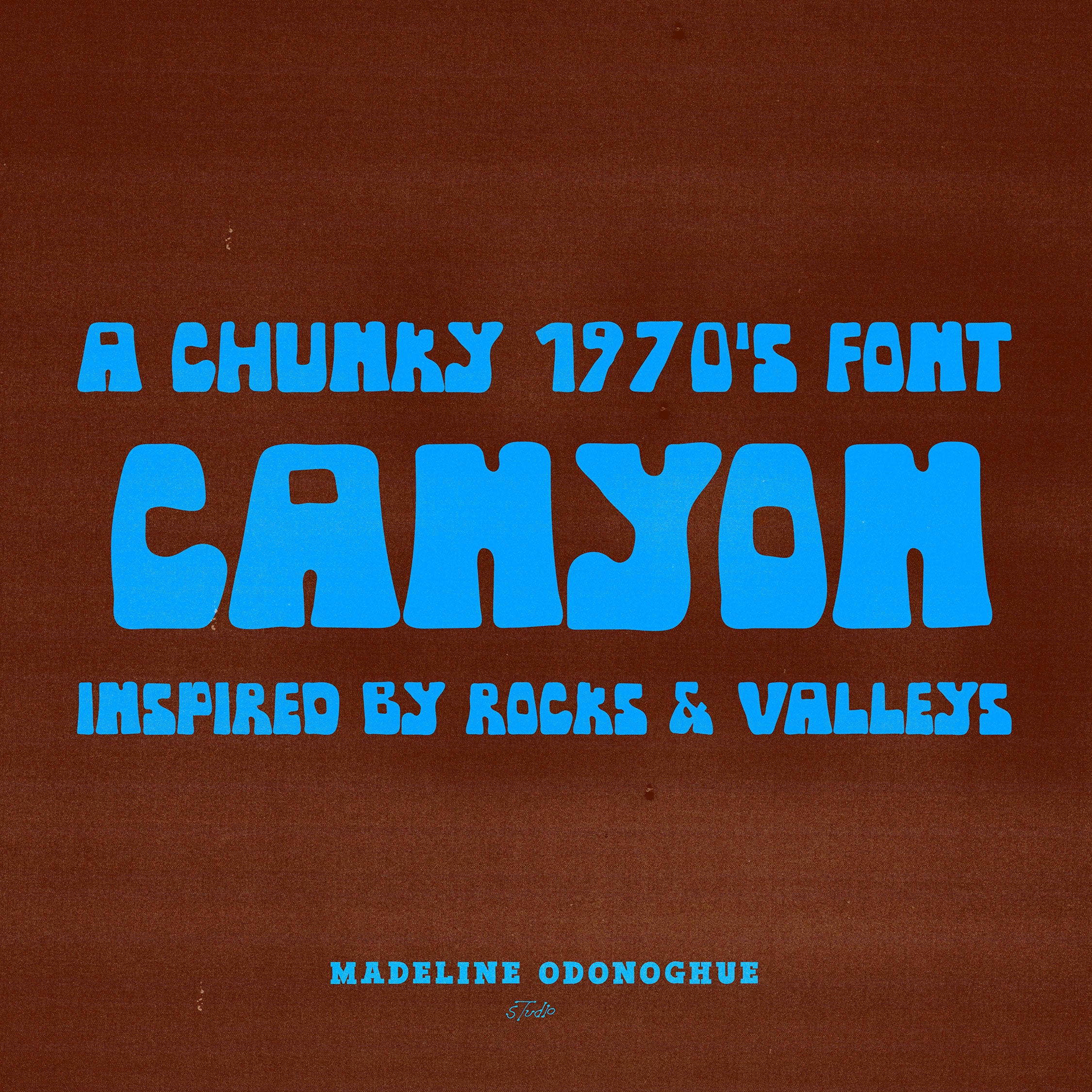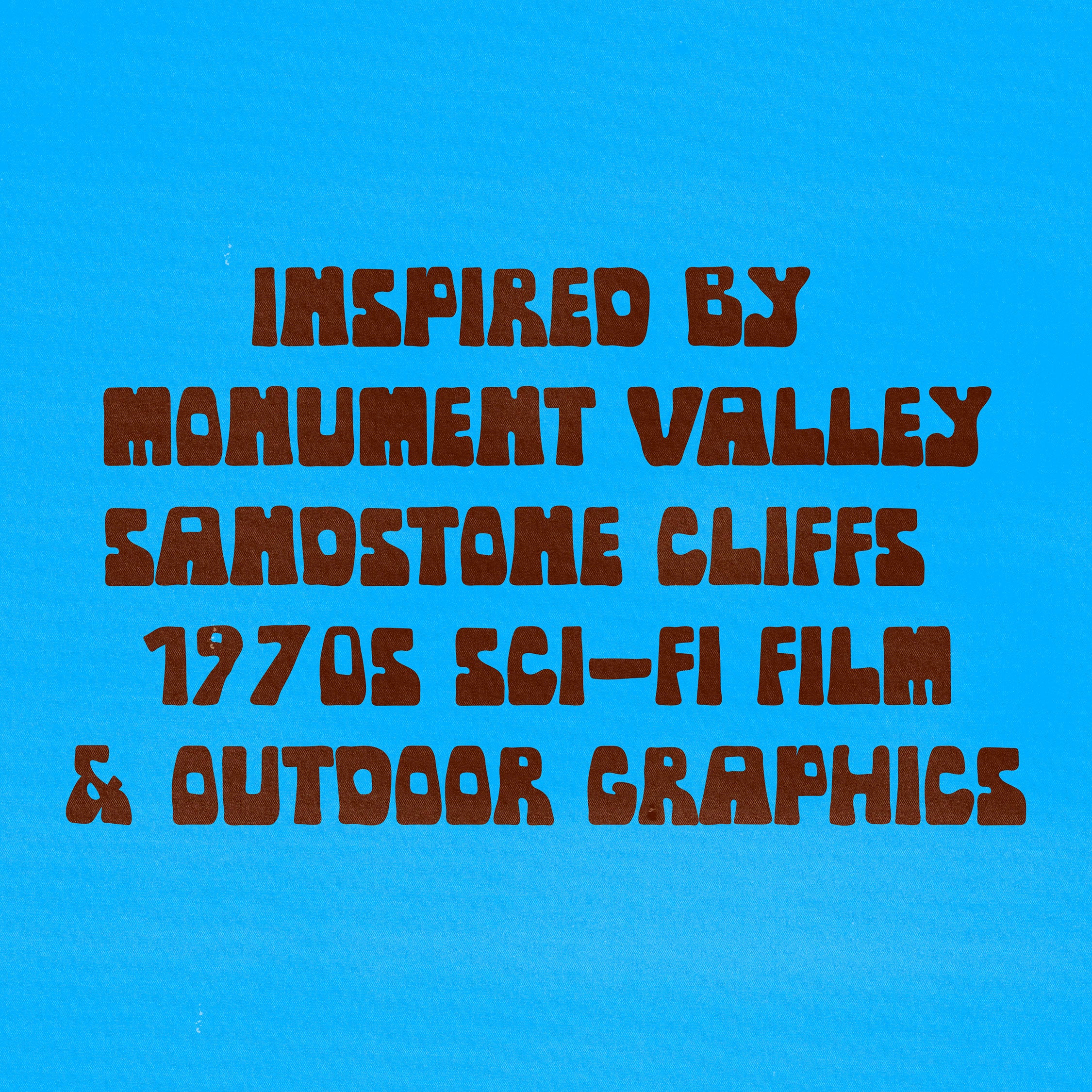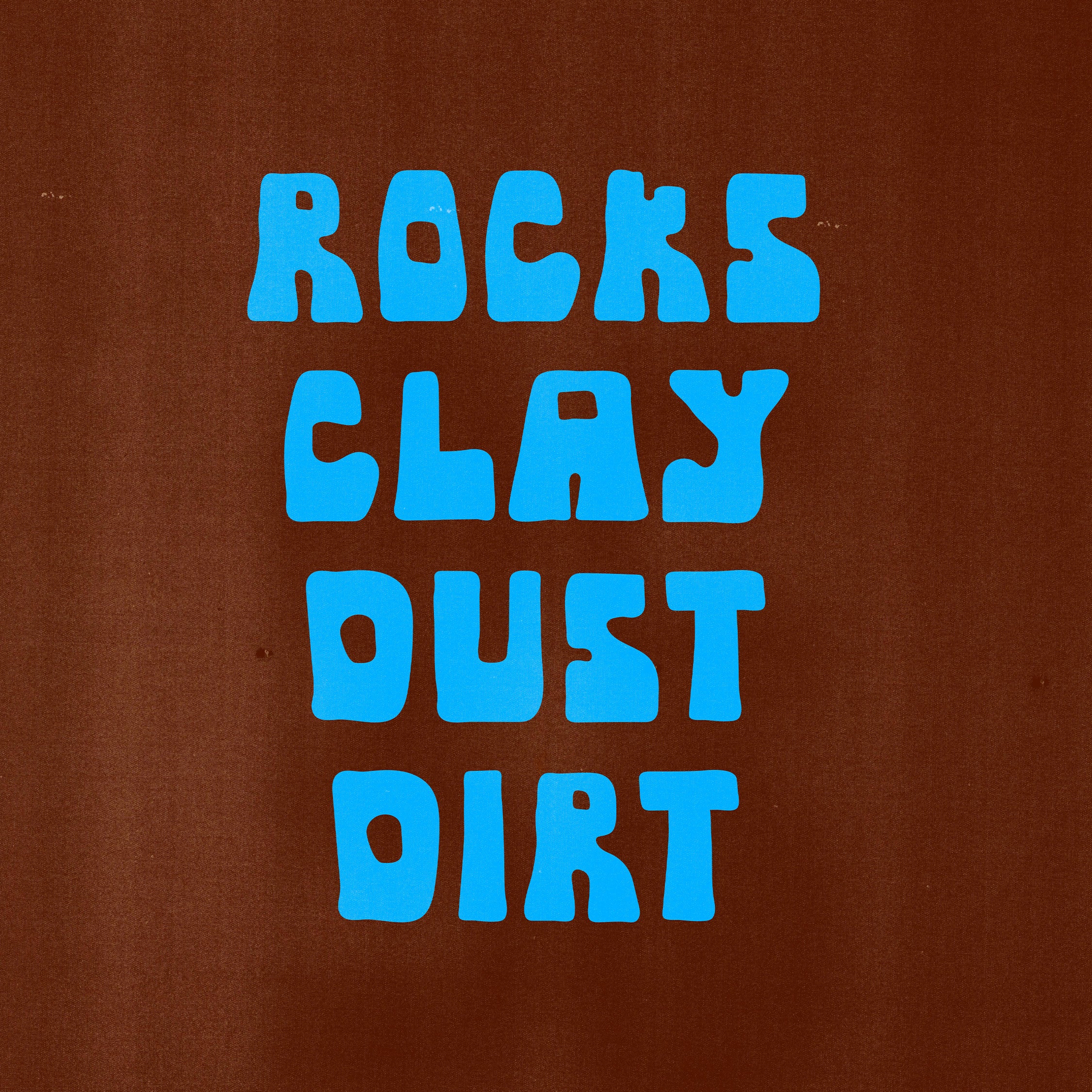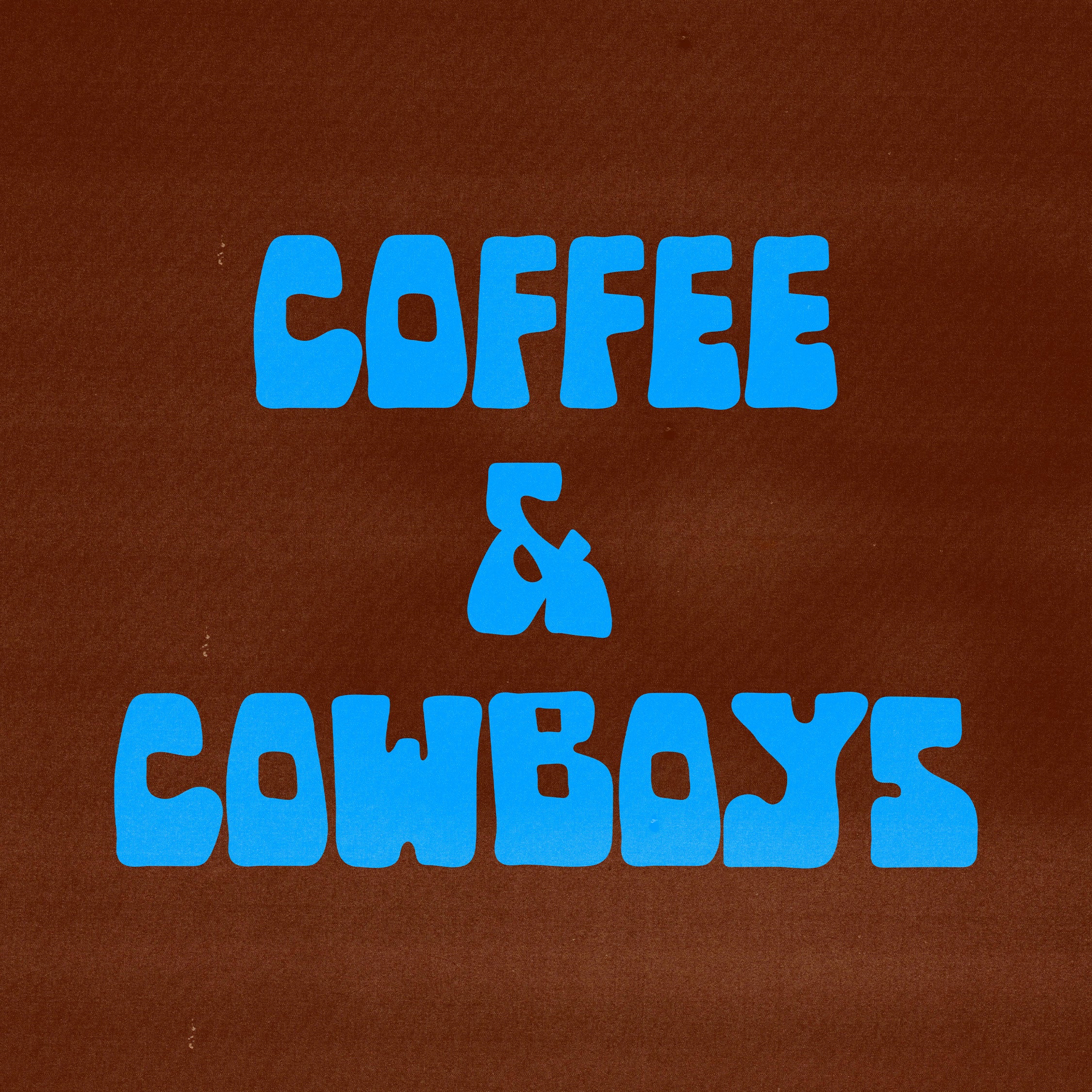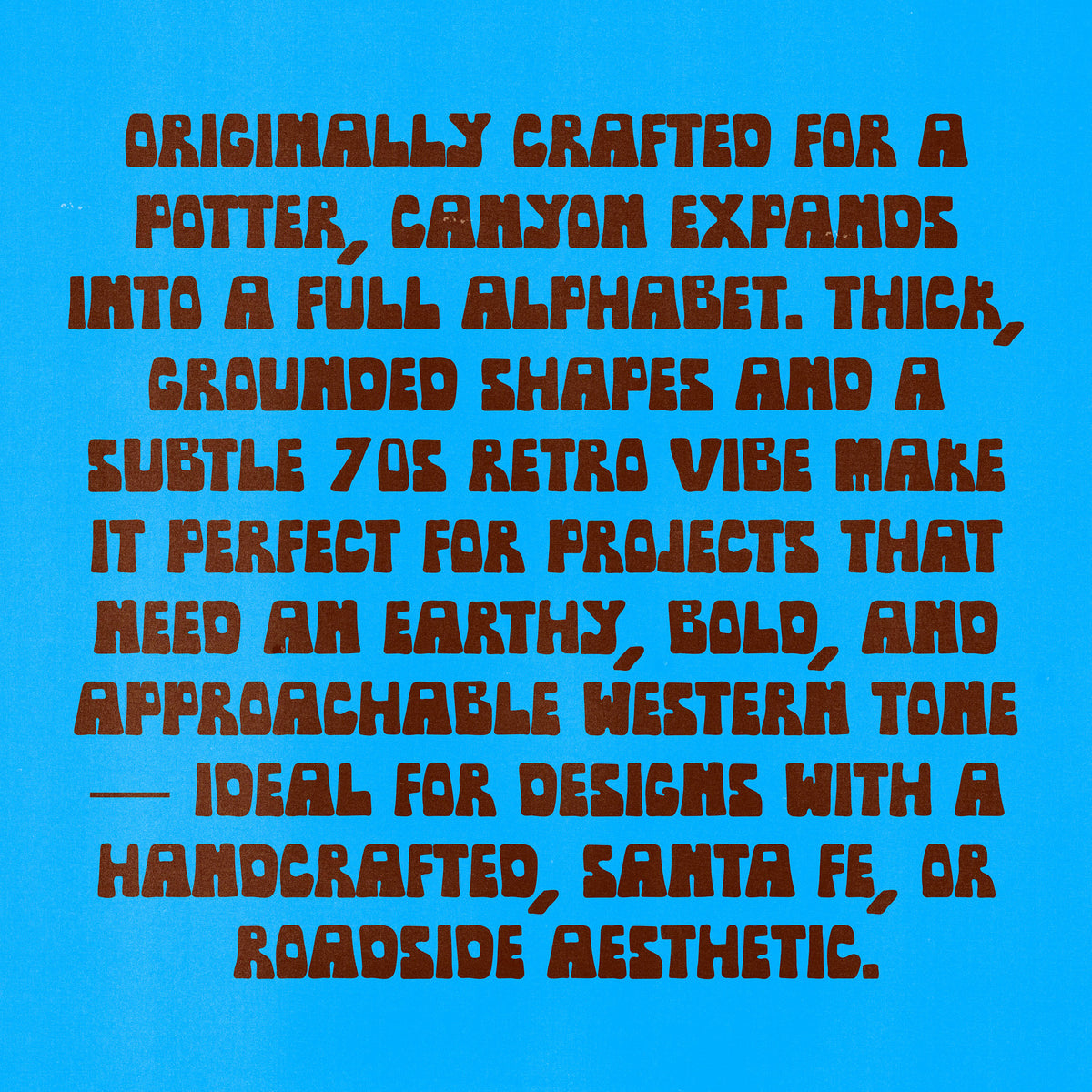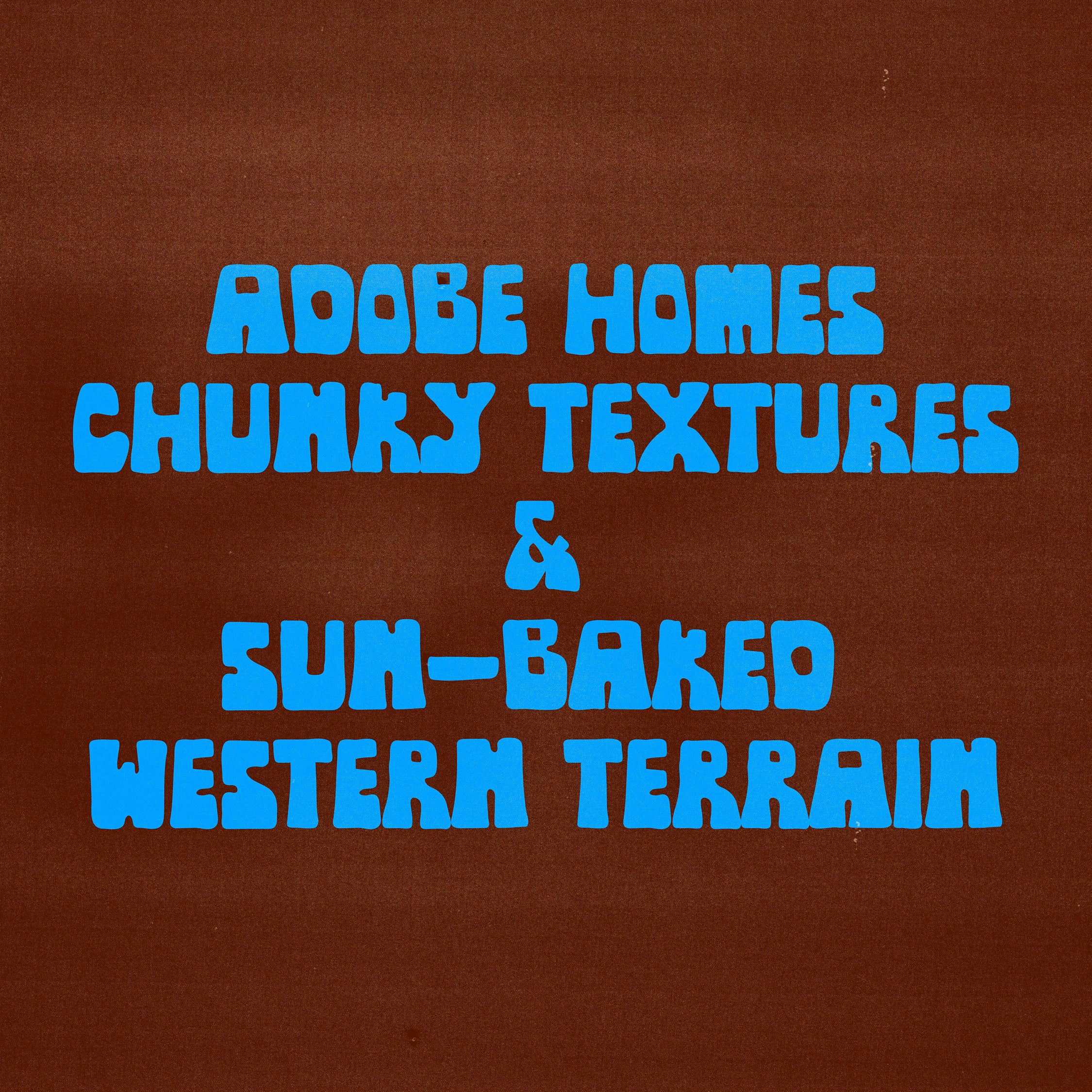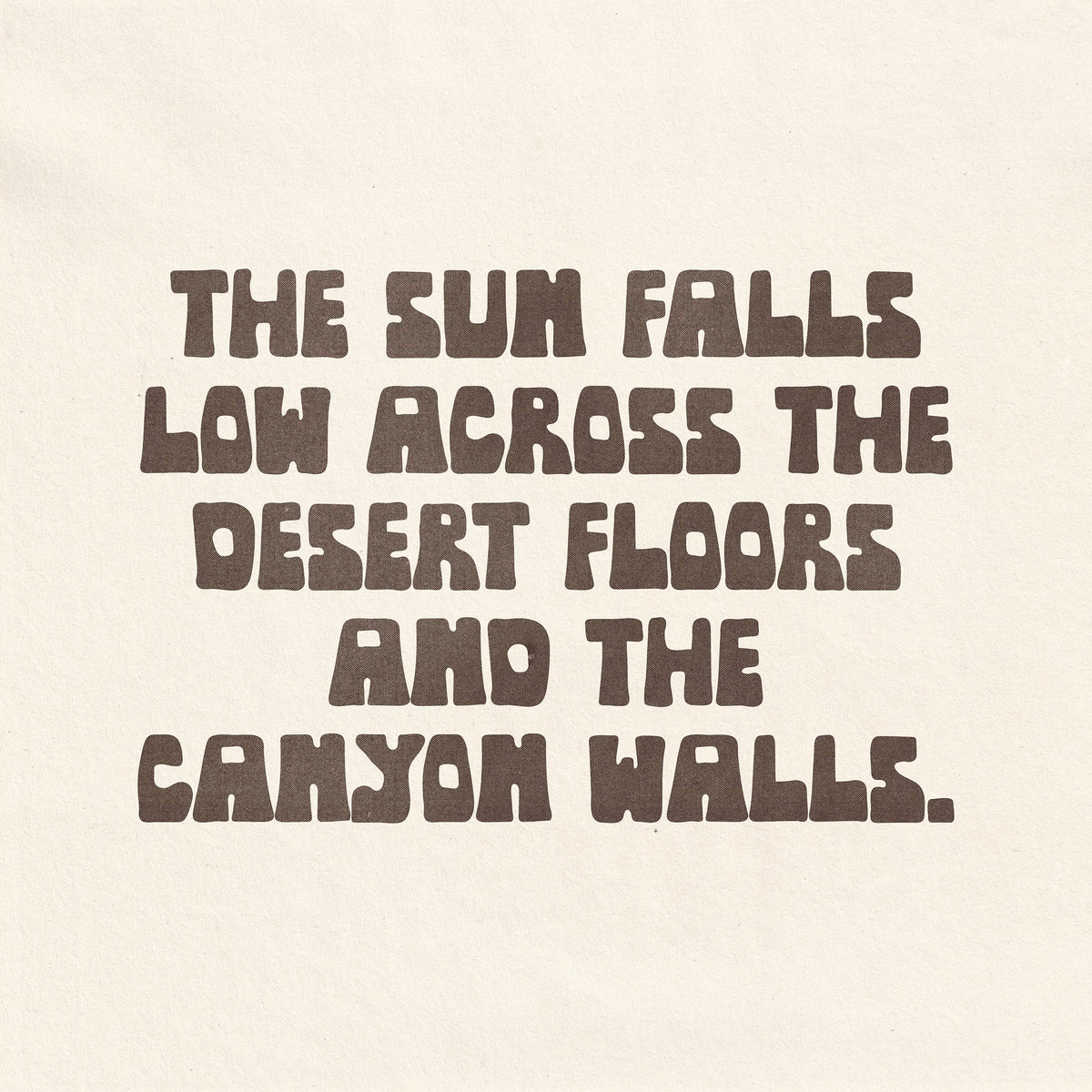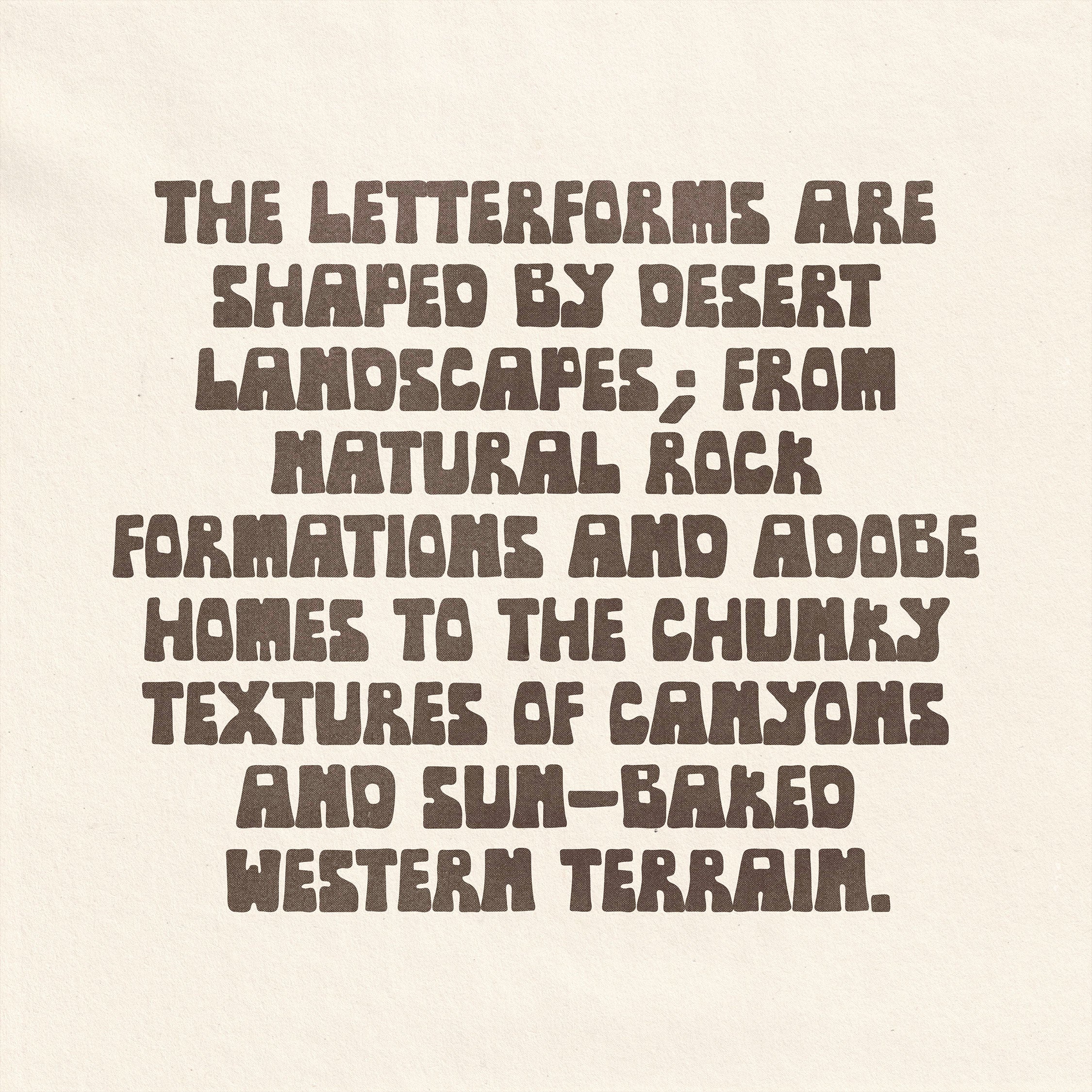
Canyon Hand Drawn Western Font
Canyon Hand Drawn is an all-caps, bottom-heavy display font inspired by the solid weight of clay on a potter’s table. The letterforms draw influence from desert landscapes—natural rock formations, adobe houses, and chunky textures found in canyons and western terrains.
Originally hand-drawn for a potter working with clay, this display font extends their custom logo into a full alphabet. With thick, grounded shapes and a subtly retro 1970s feel, Canyon is ideal for projects that need an earthy, bold, and slightly soft western tone—perfect for designs with a Santa Fe, roadside, or hand-crafted aesthetic.